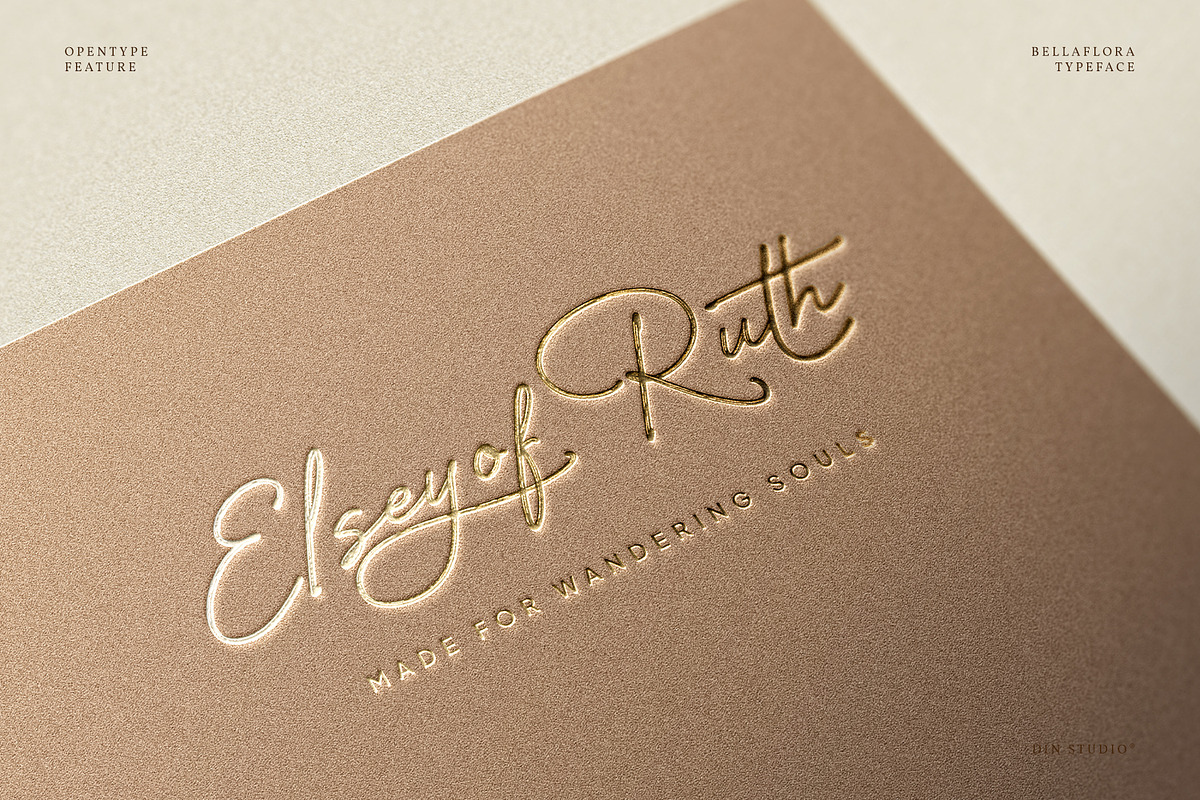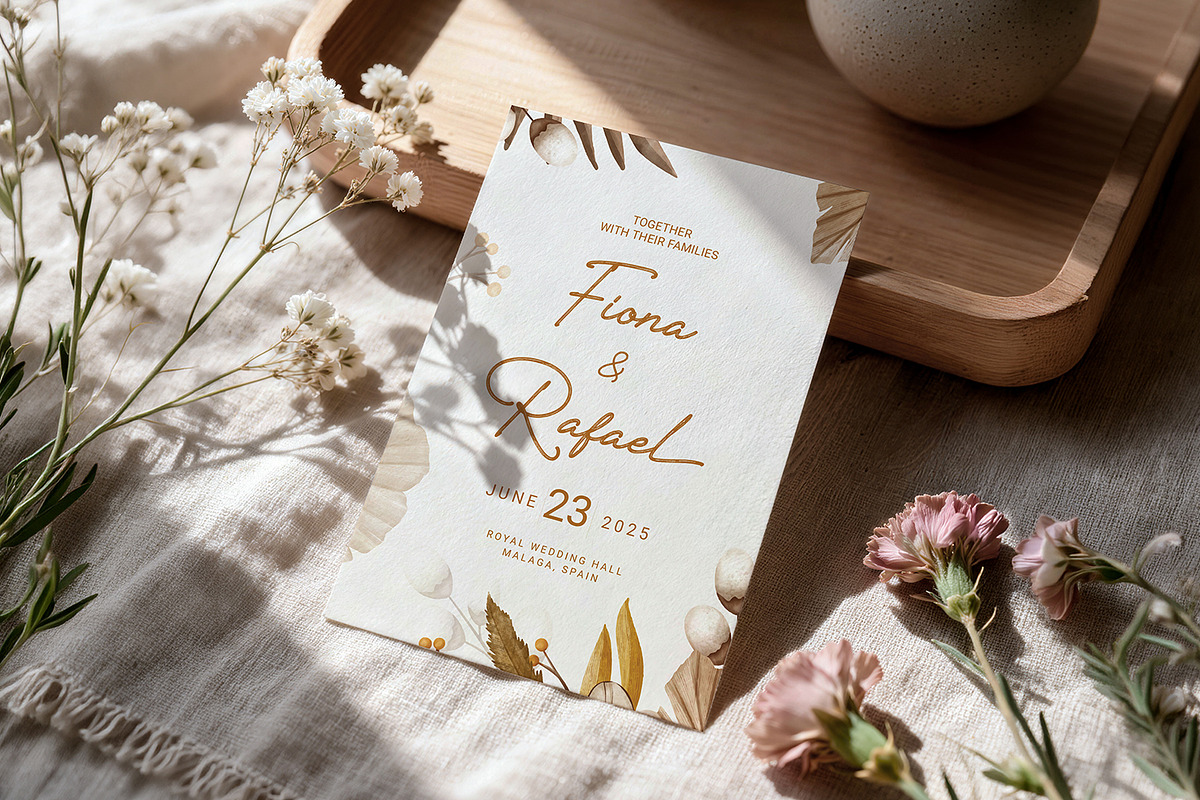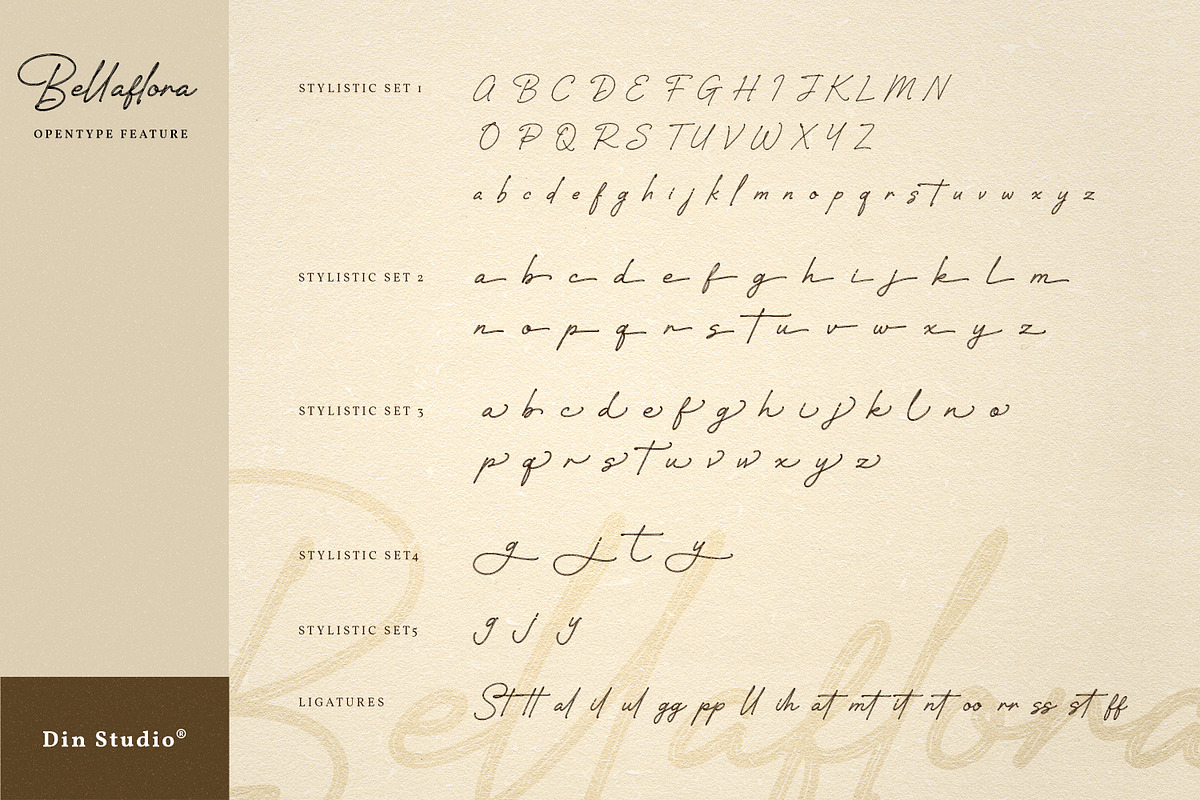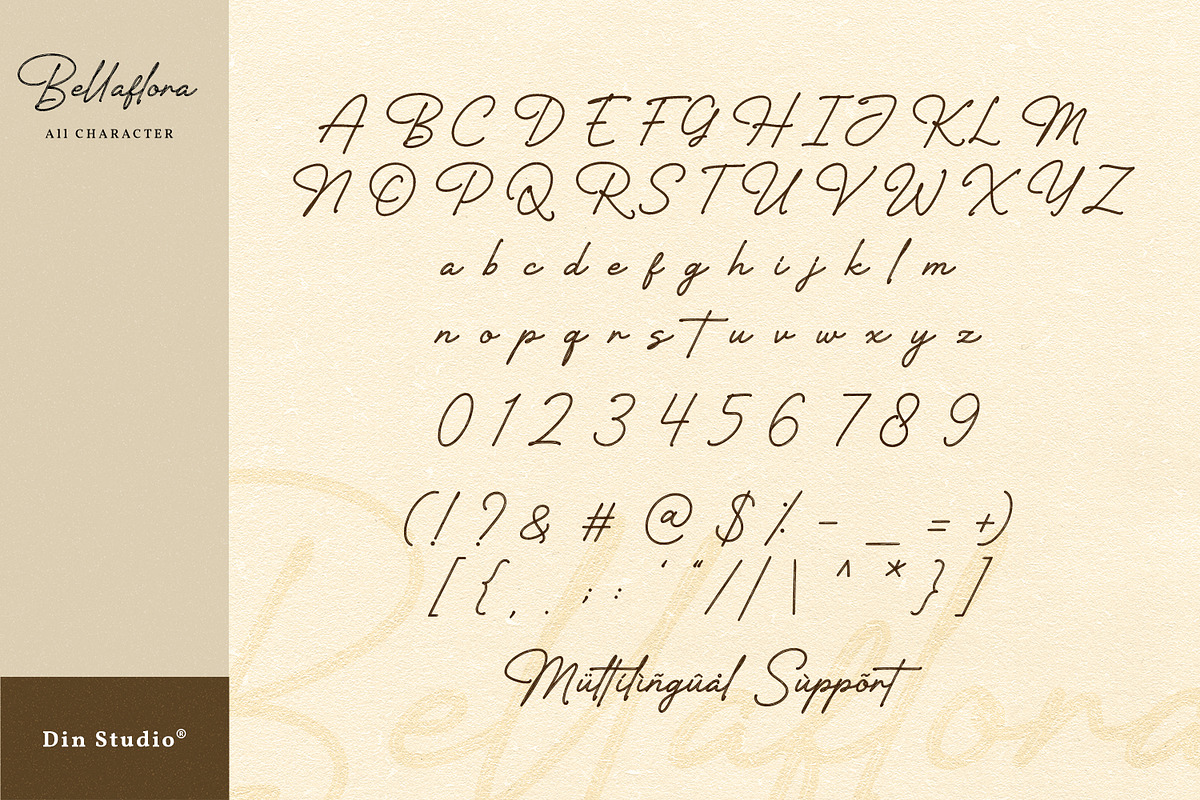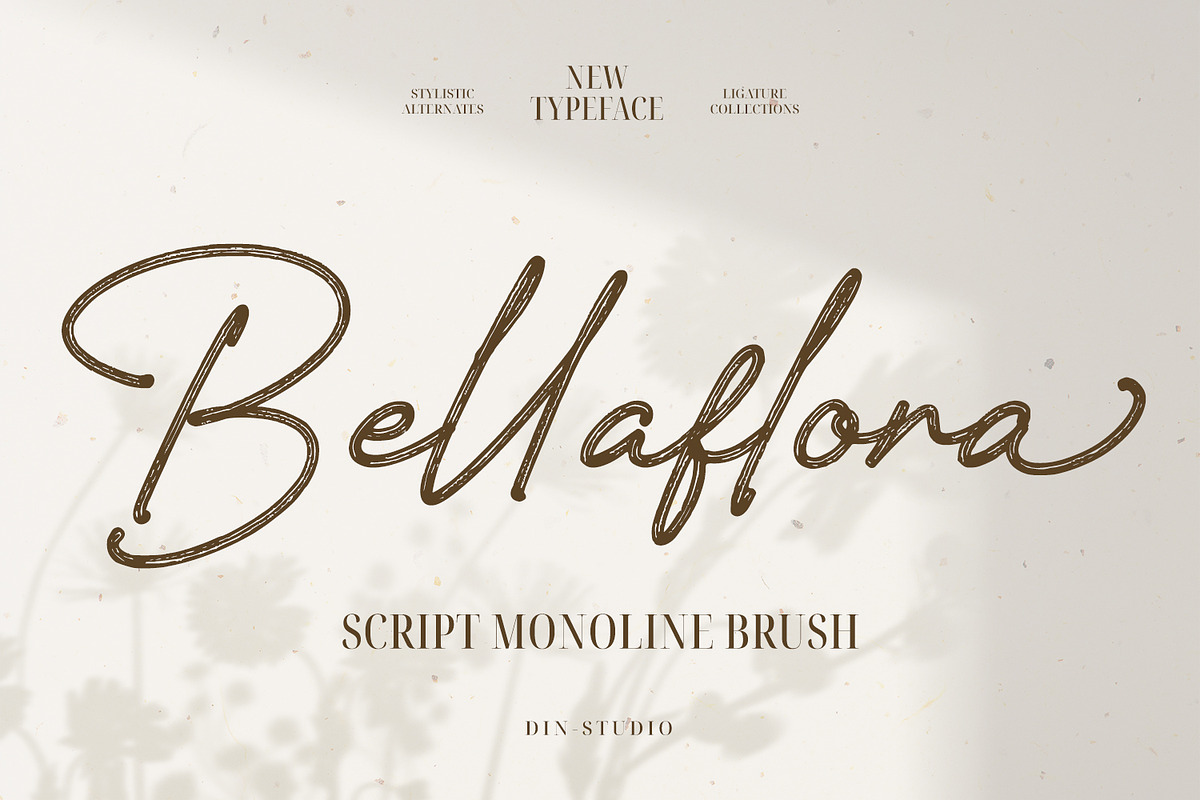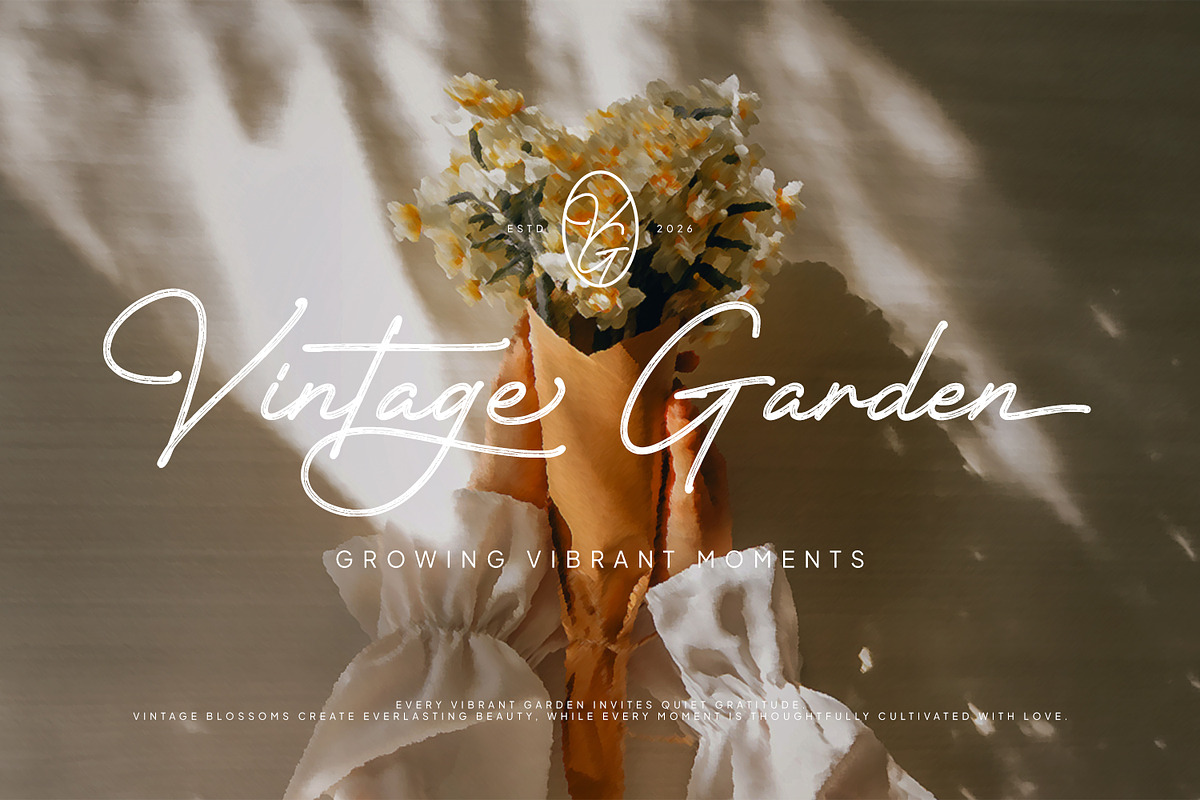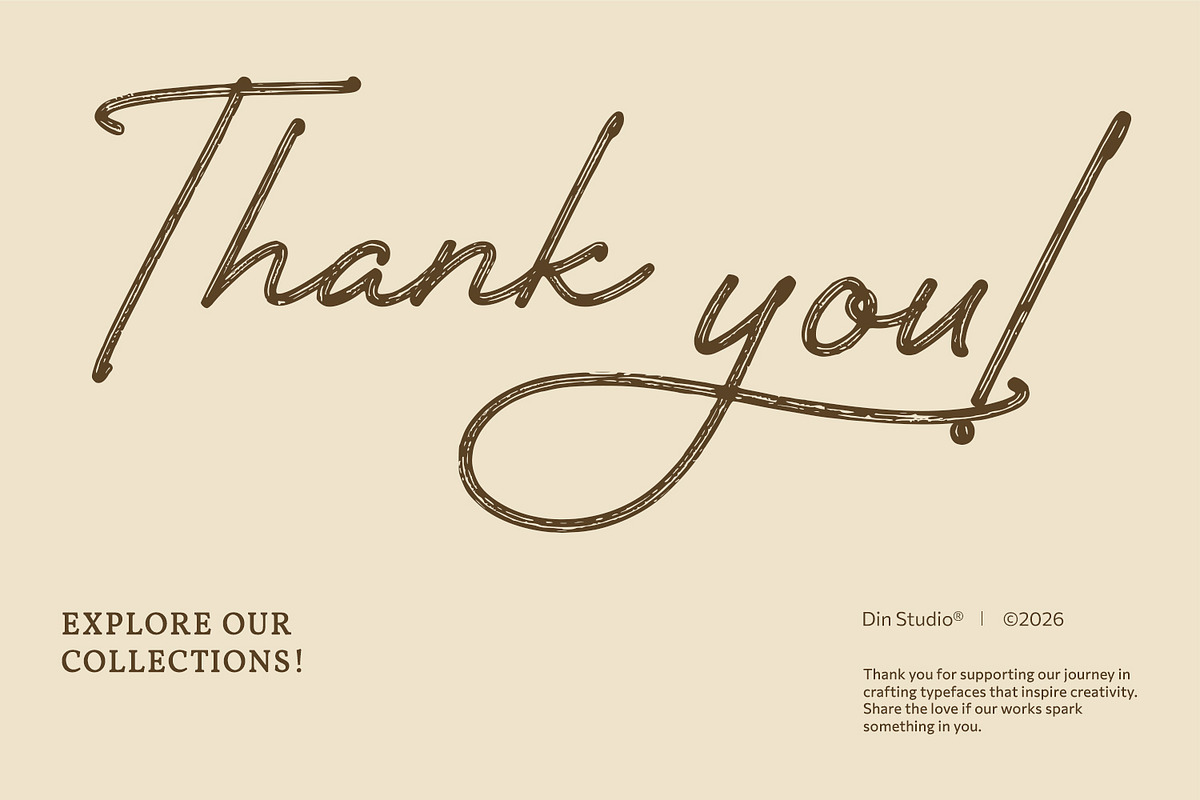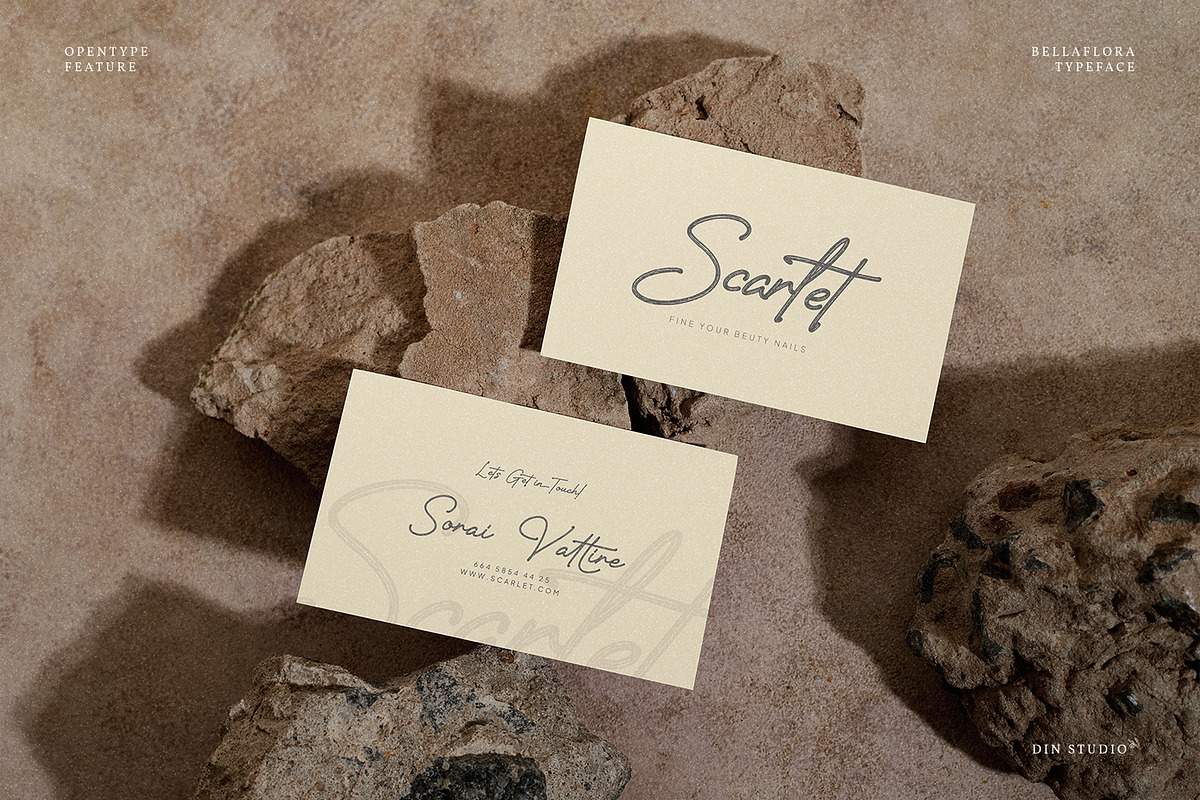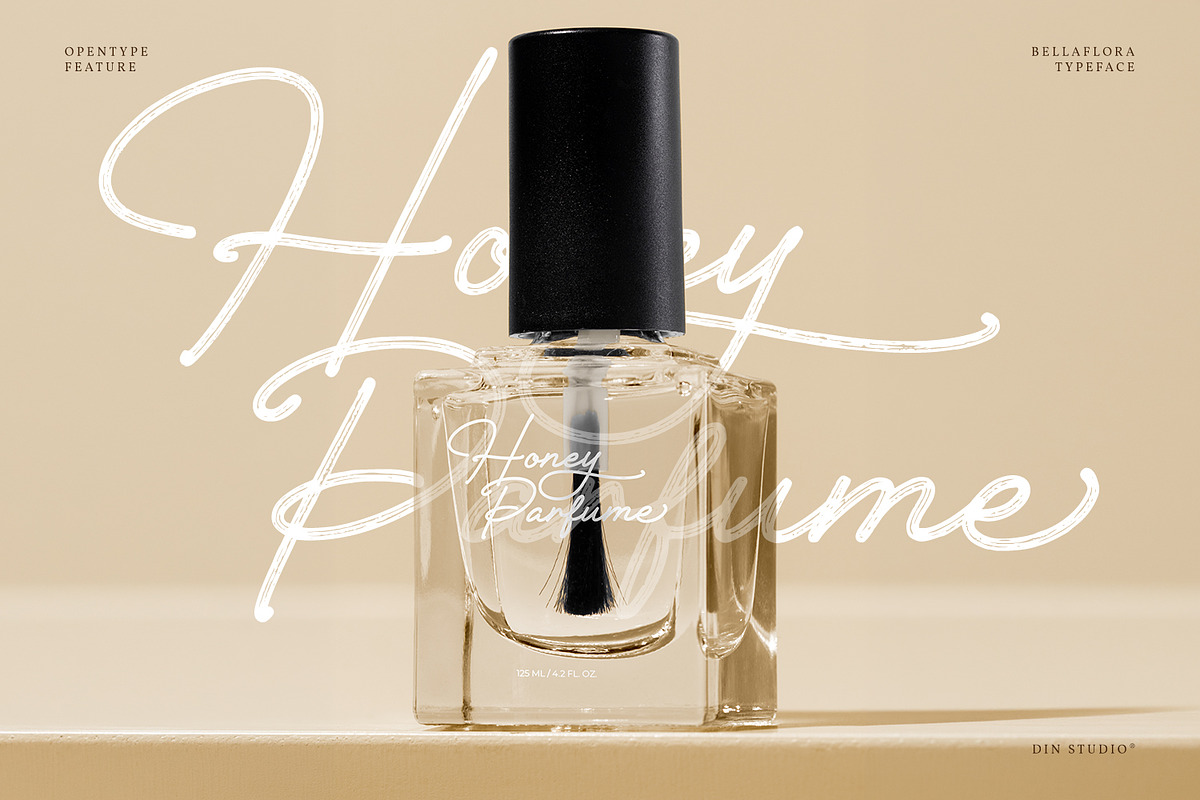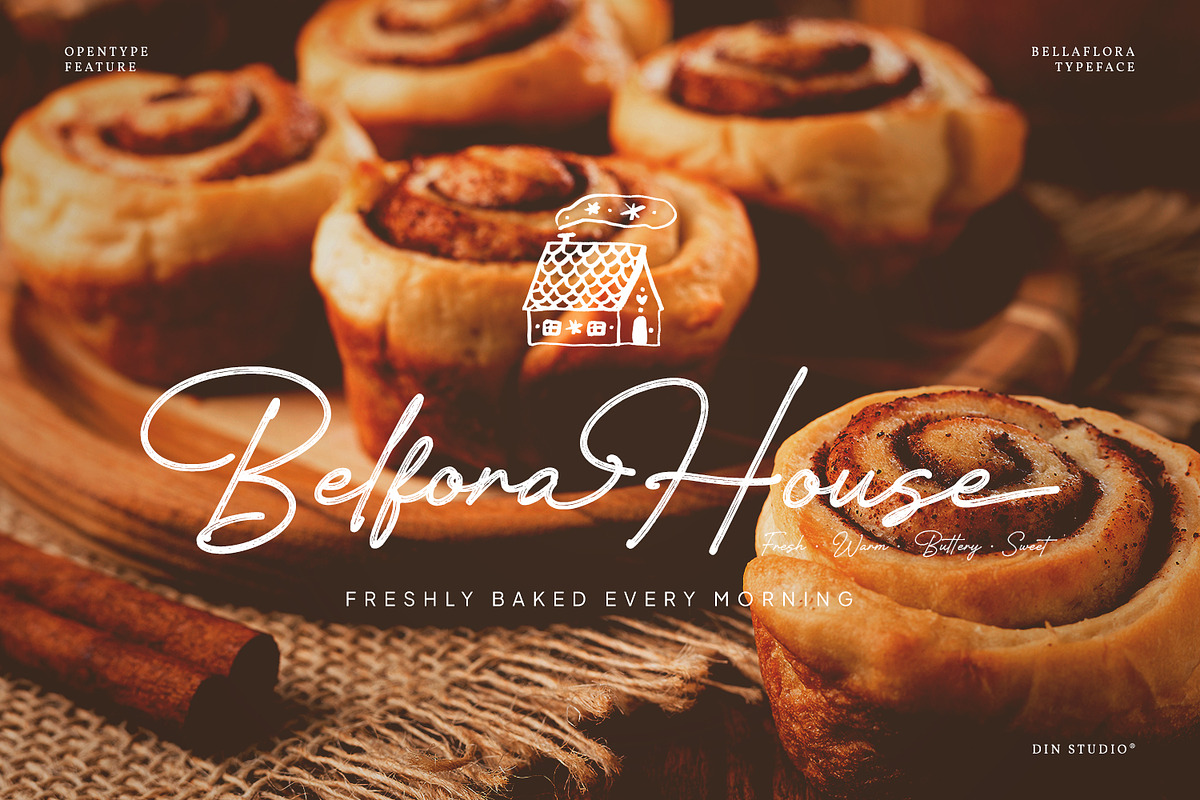
Bellaflora
Bellaflora is a graceful monoline brush. Inspired by contemporary calligraphy and handcrafted brush lettering, Bellaflora embraces a clean monoline structure that gives it a timeless and versatile character. The connected letters create seamless word compositions, while the slim, not-too-thick strokes offer an airy and sophisticated aesthetic. Its low contrast produces a soft and balanced visual rhythm, making the font ideal for projects that require elegance without overwhelming decorative details. In addition, enjoy the features here.
Stylistic Sets
Multilingual Supports
Numerals and Punctuations
Bellaflora fits in invitations, logos, quotes, name cards, branding, posters, and many more designs. Find out more ways to use this font by taking a look at the font preview.